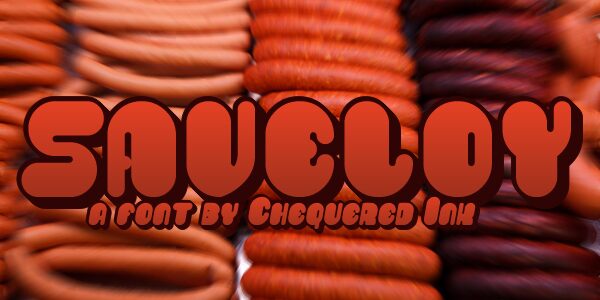
Saveloy
Saveloy is a striking display font that exudes a groovy, retro charm. Designed by Chequered Ink, this bold typeface boasts a distinctive character with its chunky, rounded letterforms and playful, organic aesthetic.
The font's bold weight and playful style make it an ideal choice for headlines, logos, and other attention-grabbing design elements. Saveloy's versatility allows it to shine in a variety of contexts, from vintage-inspired branding to vibrant, contemporary layouts.
Its unique flair and impactful presence make Saveloy a standout option for designers seeking to add a touch of personality and visual interest to their projects.